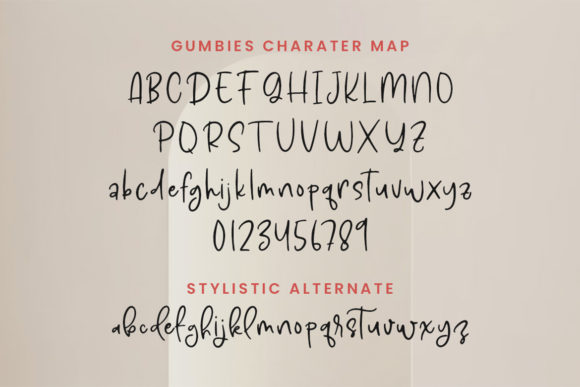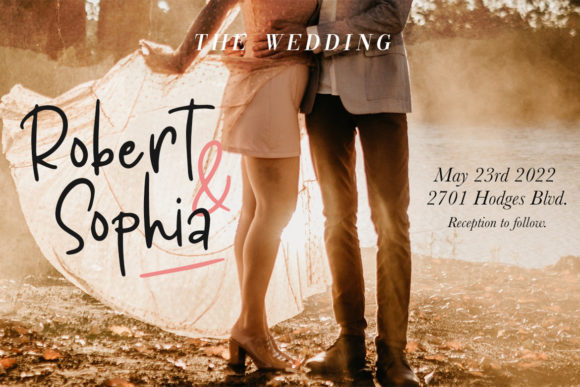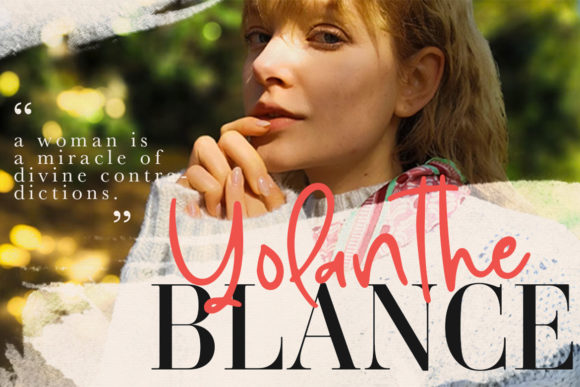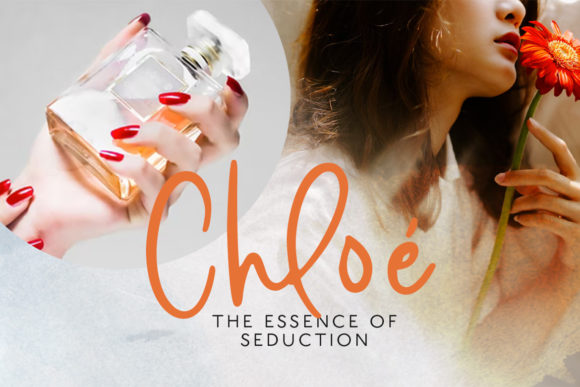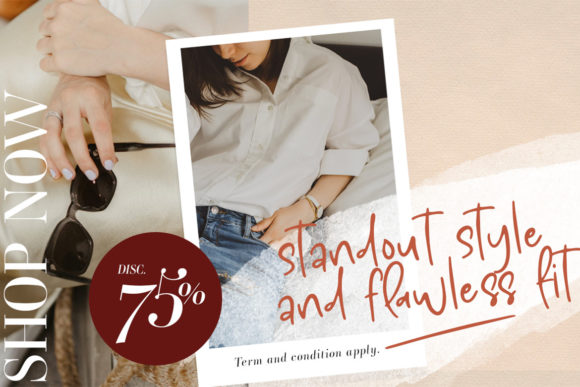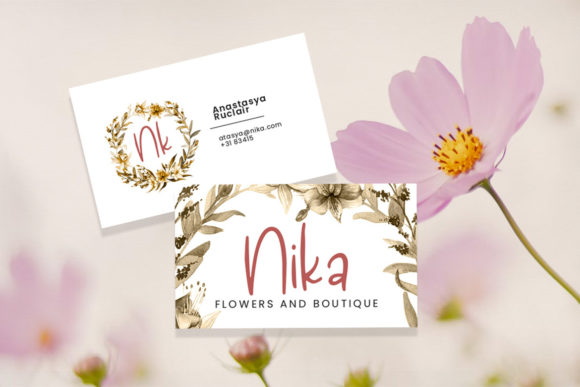
Introduction to Gumbies Font
Have you ever been working on a creative project, and you just can’t seem to find the right font to bring it all together? You’ve scrolled through countless free download options, only to end up with a font that just doesn’t have that special something. Well, we’ve got some exciting news for you! Introducing the Gumbies Font, a beautiful and free-flowing script font that’s perfect for packaging products, invitation cards, flyers, mockups, event posters, and anything else that requires high-quality vibes.
As a designer, you know how valuable it is to have access to high-quality design resources like the Gumbies Font. With its transparent background and perfectly balanced character, this font is sure to elevate your designs to the next level. Whether you’re working on a big project or just need a quick solution, the Gumbies Font is a must-have in your design arsenal.
Key Features of Gumbies Font
- Unique, playful design ideal for creative projects and kids’ educational materials
- Features a transparent background, allowing for seamless integration with other design elements
- High-quality design with precise details, suitable for print and digital applications
- Perfect for adding a whimsical touch to logos, graphics, and other design elements
Honest Review: Gumbies Font
One of the standout features of the Gumbies Font is its high-quality design. The font has a transparent background, allowing for seamless integration into any design. The clean and modern aesthetic makes it perfect for use in logos, branding, and other design elements.
Here are some of the things that work well with the Gumbies Font:
- ✨ High-quality design: The font is well-crafted and visually appealing.
- ✨ Transparent background: Easy to use and customize.
- ⚠️ Limited character set: The font may not have as many characters as some other fonts.
- ⚠️ Not suitable for large text: The font may become difficult to read when used in large quantities.
Overall, I’m impressed with the Gumbies Font. It’s a great design resource for anyone working on a creative project. While it has some limitations, the high-quality design and transparent background make it a valuable addition to any designer’s toolkit.
Gumbies Font is ideal for creative projects, such as logos, posters, and social media graphics. Its transparent background makes it perfect for overlaying on images or videos. This high-quality design resource is also suitable for presentations, reports, and marketing materials.